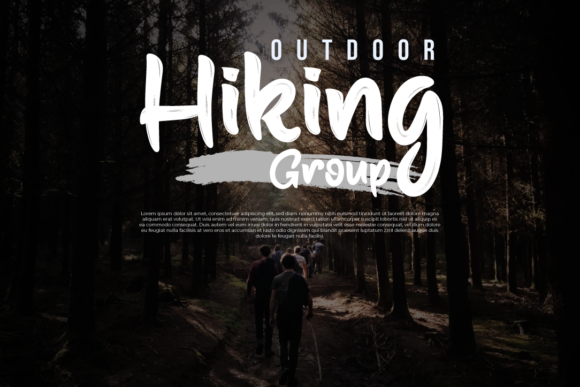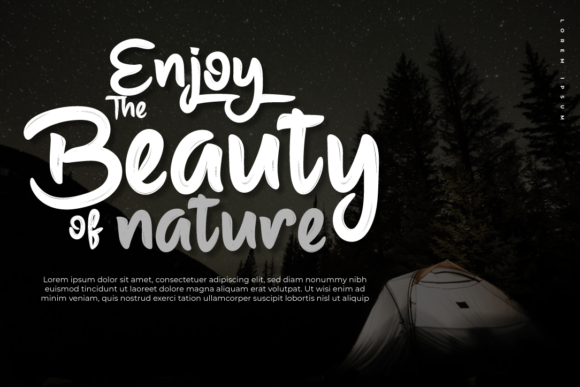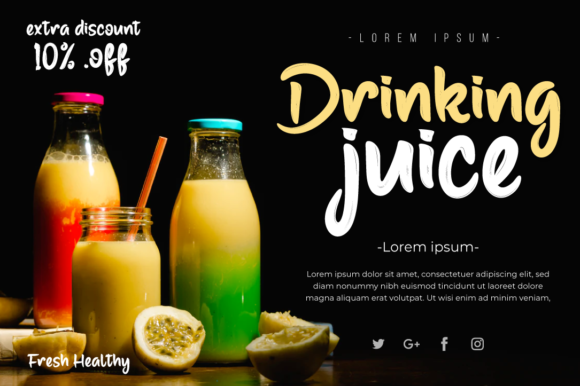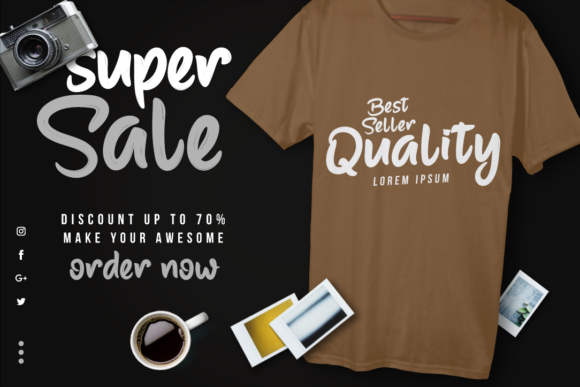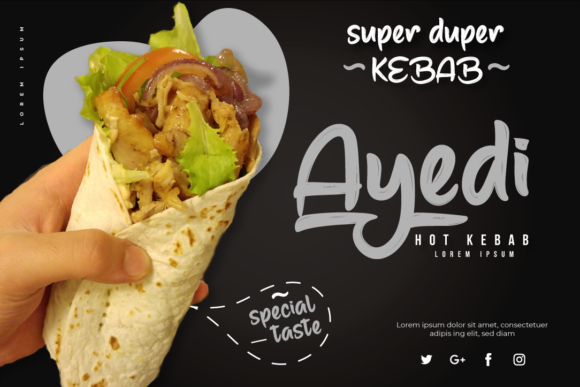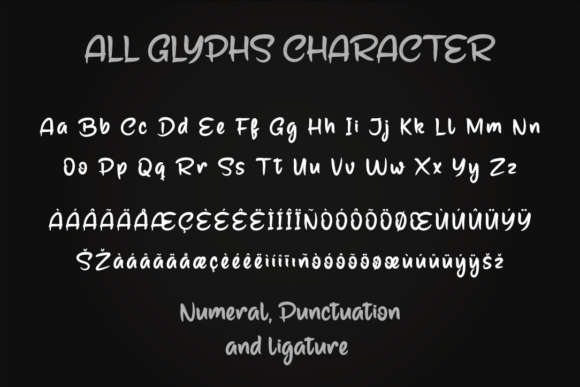
Introduction to Mayor Font
You’re in the midst of a creative project, and you need a font that can make your design truly stand out. The excitement is building as you search for the perfect font to bring your vision to life. That’s where Mayor Font comes in – a brush handwritten font that’s sure to leave a lasting impression.
Mayor Font is a game-changer for designers, offering a unique blend of high quality and versatility. With its transparent background, this font is perfect for creating eye-catching designs that can be used across a wide range of applications, from branding and advertising to posters, banners, and packaging.
As a valuable design resource, Mayor Font is available for free download, making it an accessible addition to any creative arsenal. Whether you’re working on a podcast, outdoor activity, or apparel project, this font is sure to elevate your designs and leave a lasting impact on your audience.
Key Features of Mayor Font
- High-quality design resource with a unique and creative style, perfect for various creative projects.
- Mayor Font is a great addition to any designer’s collection, offering a distinctive and eye-catching look for creative projects.
- Its high-quality design and transparent background make it an ideal resource for graphic designers, digital artists, and other creatives.
Honest Review: Mayor Font
I recently stumbled upon Mayor Font and was impressed with its sleek design and versatility. This free download is a great addition to any creative project, offering a high-quality font that’s perfect for logos, titles, and other design elements.
What works well is the transparent background, which makes it easy to customize and blend with other design elements. The font is also highly legible, making it a great choice for both digital and print projects.
- ✨ Highly customizable: The transparent background makes it easy to adjust and mix with other design elements.
- ✨ Versatile: Mayor Font is suitable for a wide range of creative projects, from logos to titles and headings.
However, there are a few limitations to consider. Mayor Font may not be the best choice for complex, multi-line text, as it can become difficult to read.
Overall, I’m impressed with Mayor Font and would recommend it to anyone looking for a high-quality, free font for their creative projects. With a little creativity, Mayor Font can add a touch of sophistication and professionalism to any design.
Mayor Font: A High-Quality Design Resource
Common Use Cases for Mayor Font
Mayor Font is perfect for a variety of design projects, including creative projects, presentations, and documents. Its modern and sleek design makes it ideal for business, marketing, and branding projects. Mayor Font is also great for creating social media graphics, posters, and flyers.